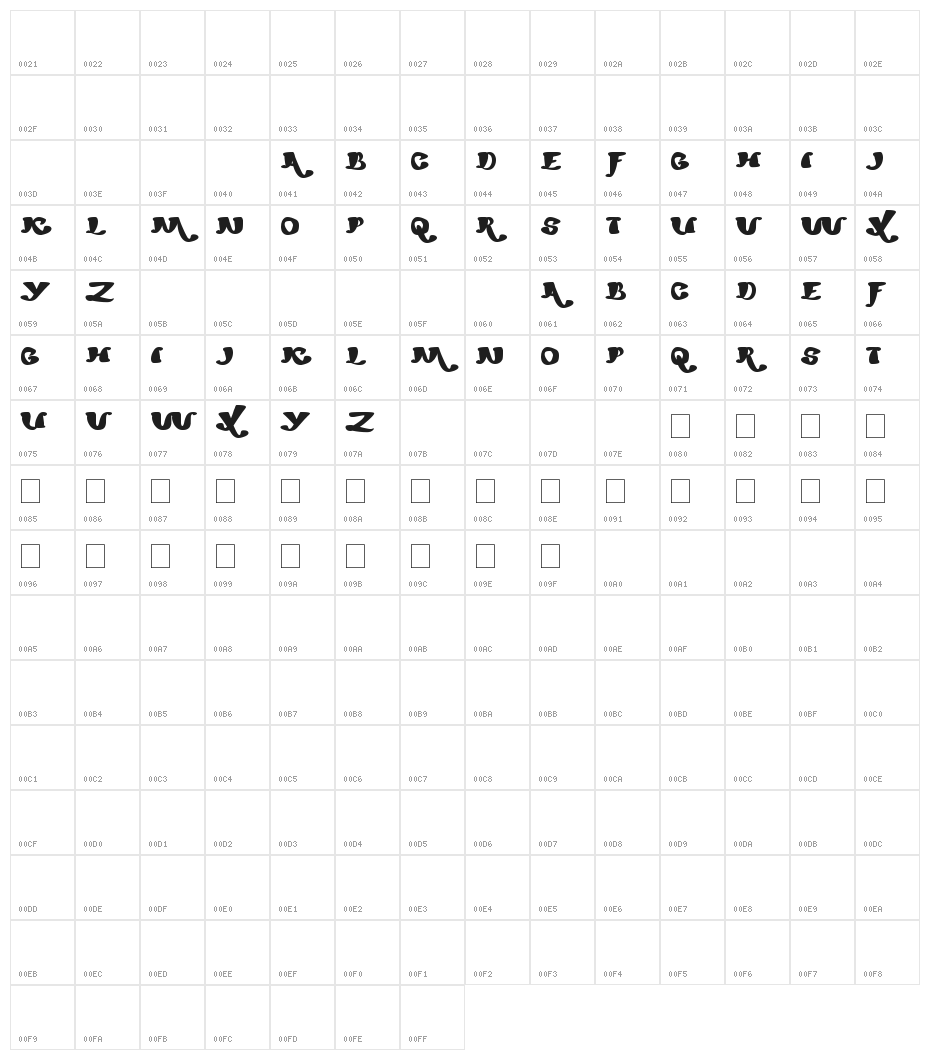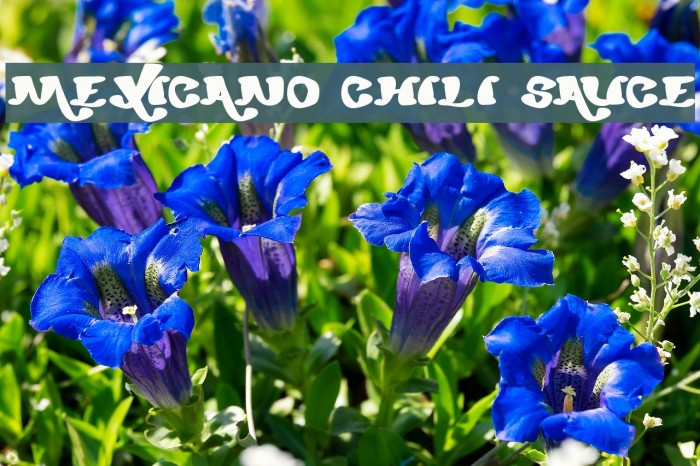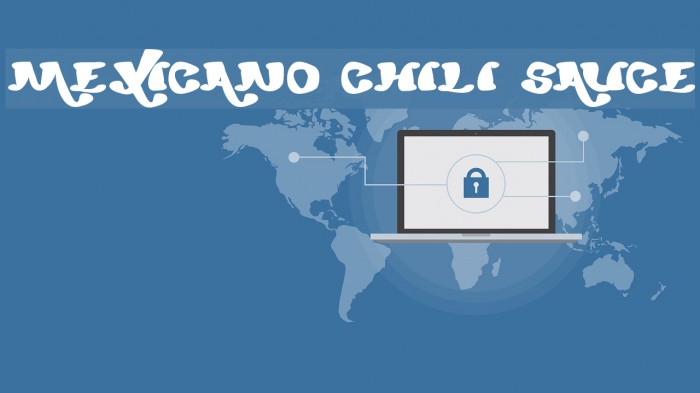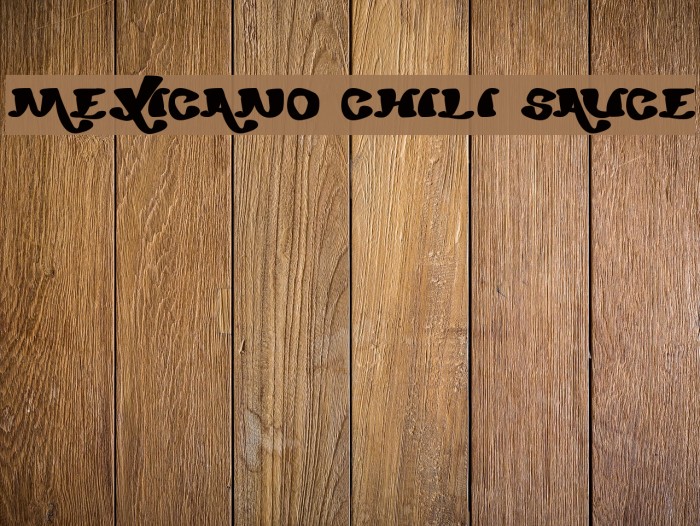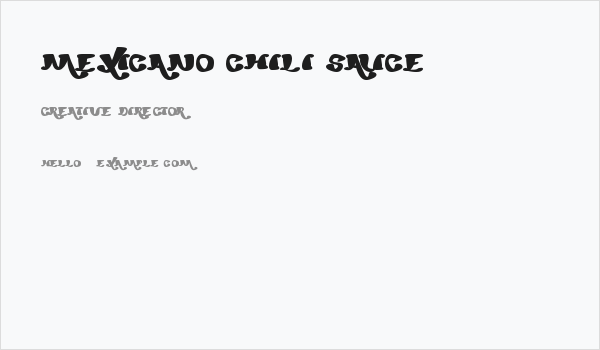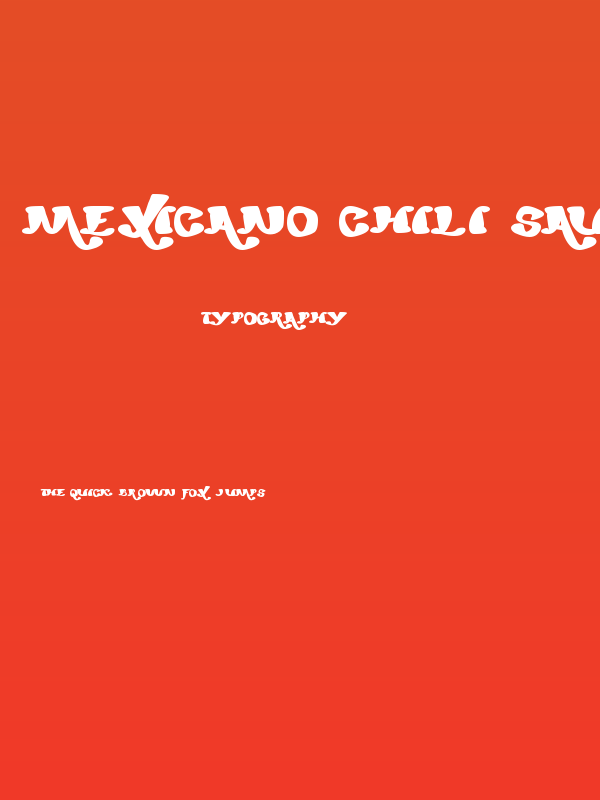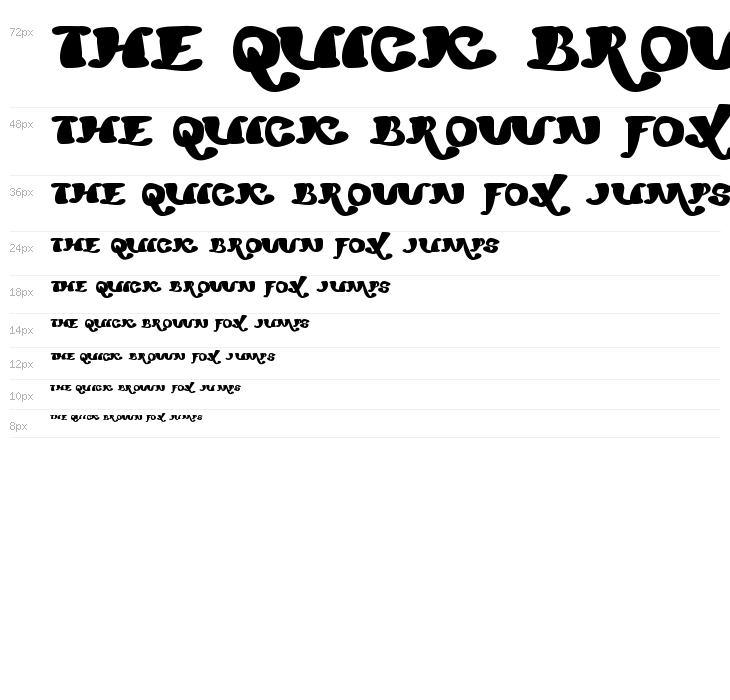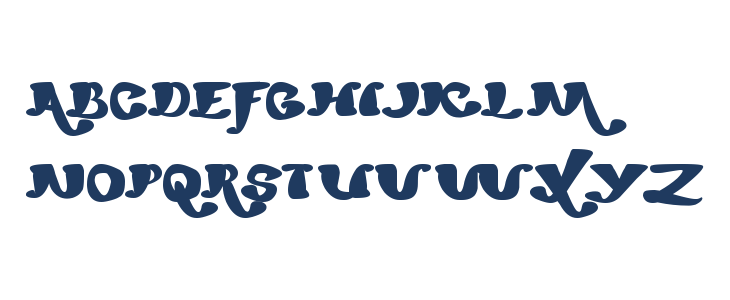
mexicano chili sauce Font
mexicano chili sauce Description
This font features a bold and decorative style with a strong visual impact. The characters are designed with thick strokes and unique, playful curves that give it a lively and energetic appearance. The uppercase letters have exaggerated serifs and flourishes, adding to the font's ornamental nature. The overall design is reminiscent of traditional Mexican art, making it ideal for projects that require a cultural or festive touch. The font's boldness ensures readability while maintaining its decorative elements, making it suitable for eye-catching headlines and titles.
| Proposed Projects | Ideal for cultural event posters, festive invitations, restaurant menus, and branding that requires a lively and traditional aesthetic. |